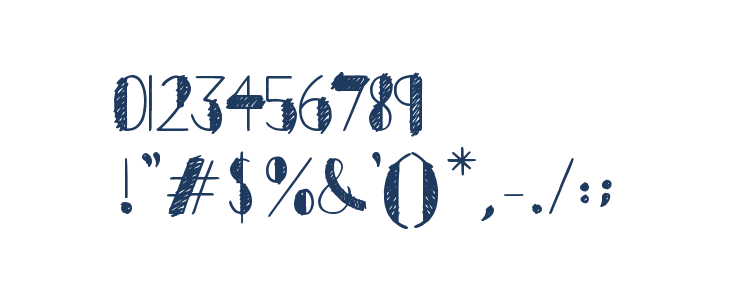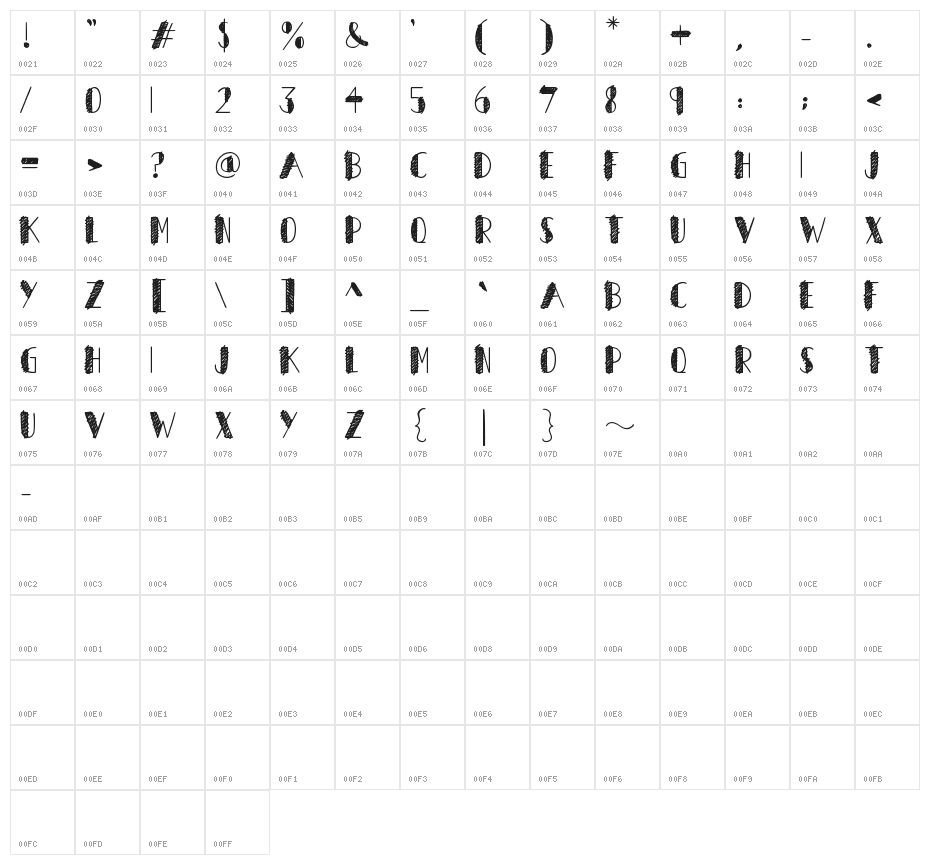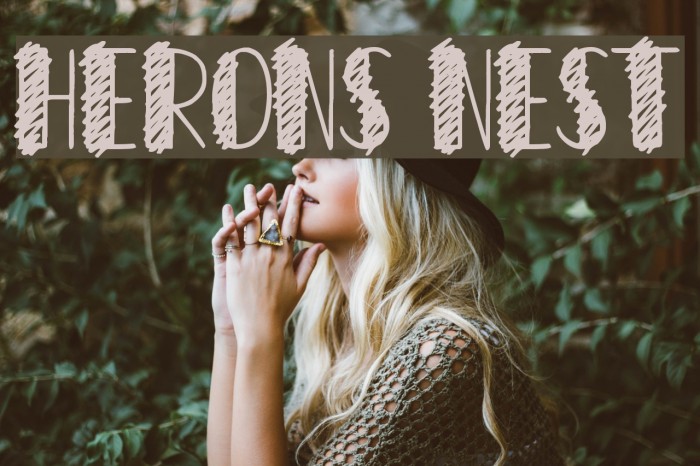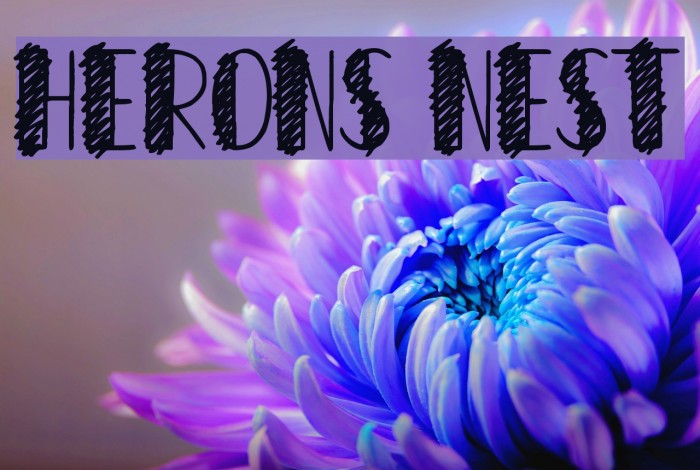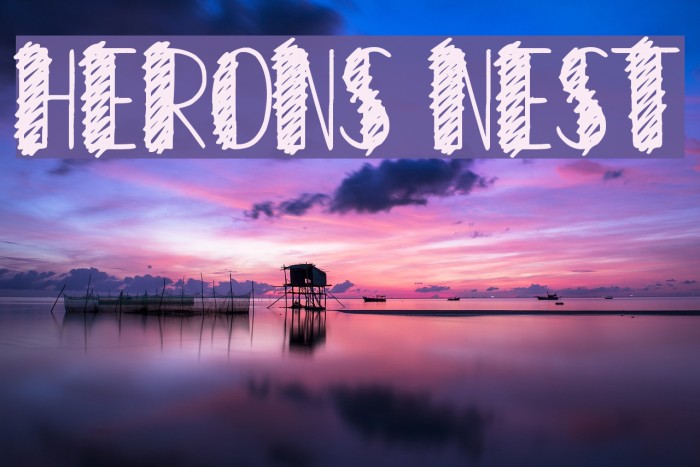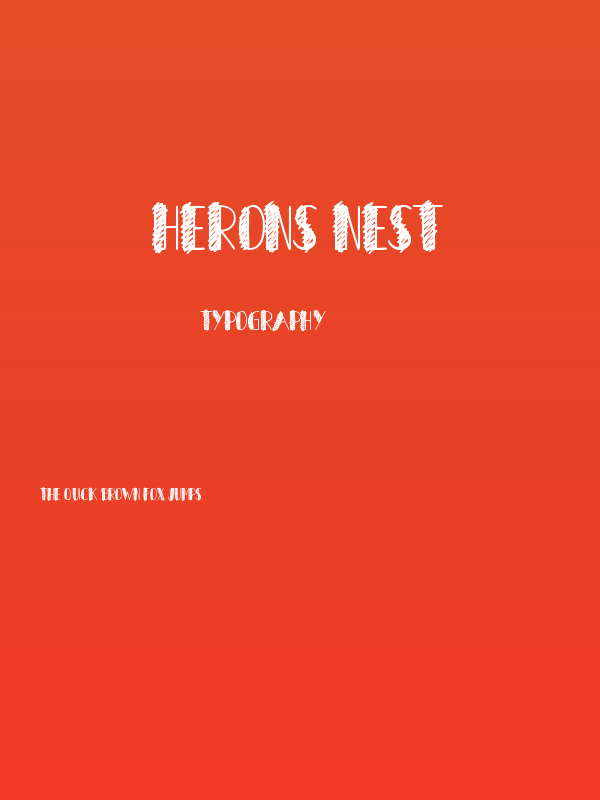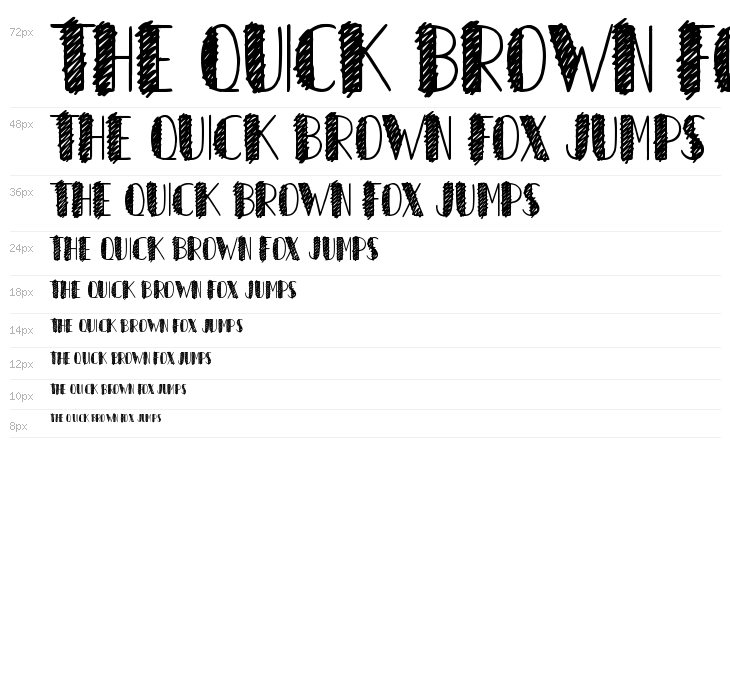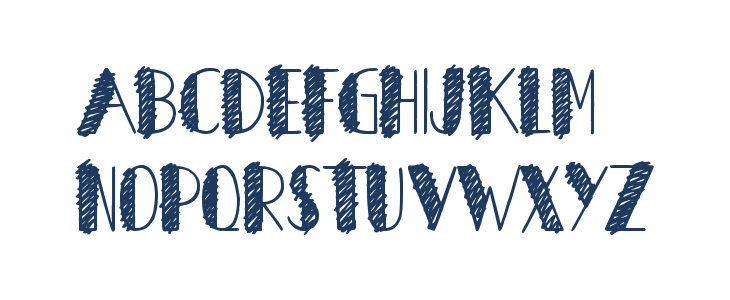
Herons Nest Font
Herons Nest Description
This font features a bold, hand-drawn style with a textured, sketch-like appearance. Each character is filled with diagonal lines, giving it a dynamic and energetic feel. The uppercase and lowercase letters maintain a consistent design, with sharp angles and a slightly condensed form. Numbers and special characters follow the same aesthetic, ensuring uniformity across all elements. The font's unique style makes it stand out, perfect for projects that require a creative and artistic touch.
| Overall Style | Artistic, Energetic, Creative |
| Use Case | Headlines, Posters, Artistic Branding |
| Proposed Projects | Ideal for posters, artistic branding, creative invitations, and eye-catching headlines. |